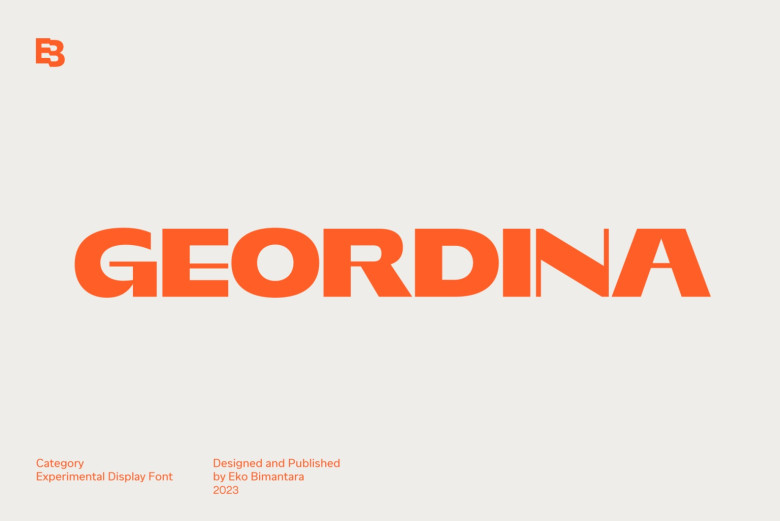
Geordina Font
Geordina is an innovative display typeface characterized by its striking sans-serif style that features high contrast and original features, making it the ideal font choice for all kinds of design and development applications.
Ideal for large headers and numerous layout designs; making Geordina an excellent option for logos websites, branding identities packaging designs product launches graphic design projects as well as creative graphic projects of any kind – it guarantees bold and memorable impressions when used when designing logos or other creative projects.
Geordina makes for striking use when used to design logos websites as it stands out against others with high contrast features making an impressionful logo design project using Geordina!
Geordina Display Font